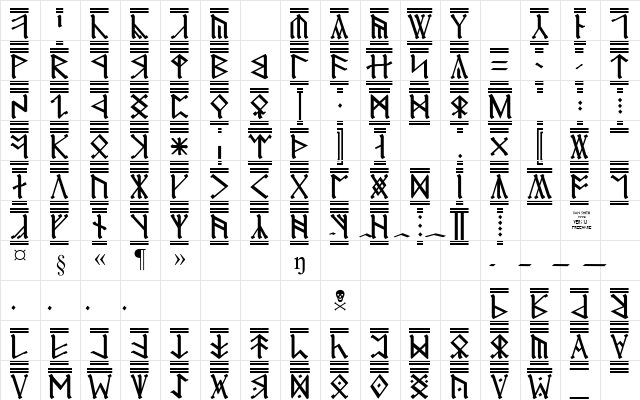
Cirth Erebor-2 Regular
Design Context for Cirth Erebor-2 Typeface
Cirth Erebor-2 takes a measured approach to typography — its balanced proportions and neutral character make it a reliable workhorse for both digital and print work.